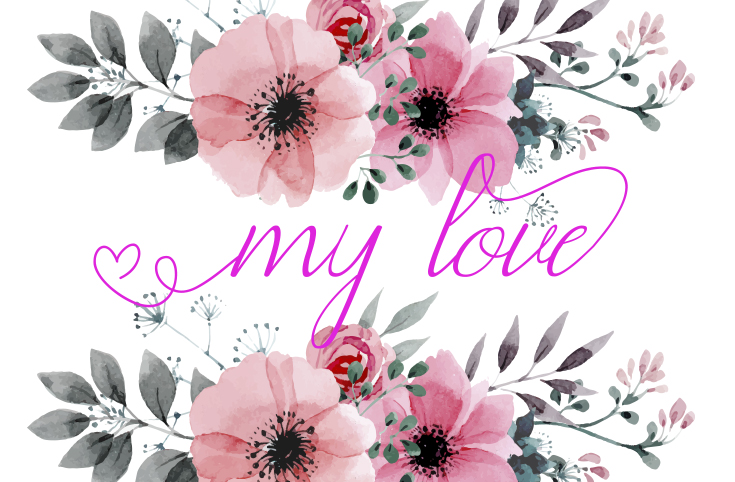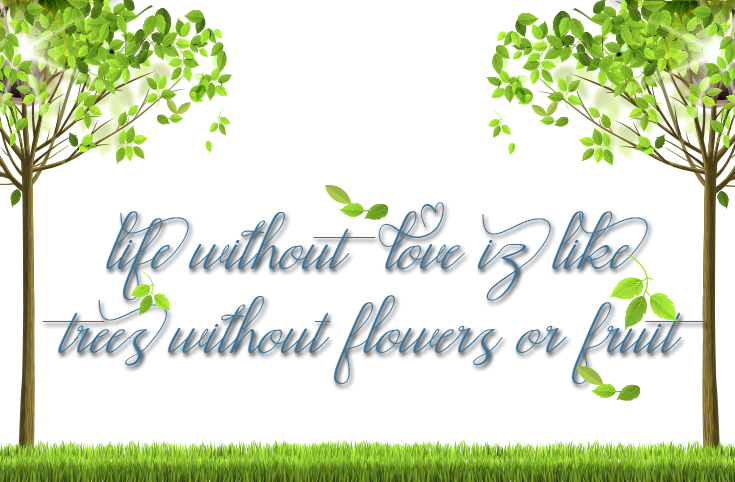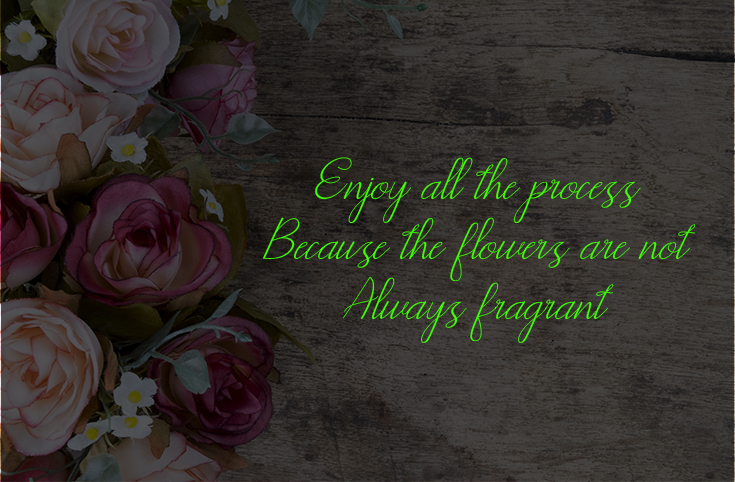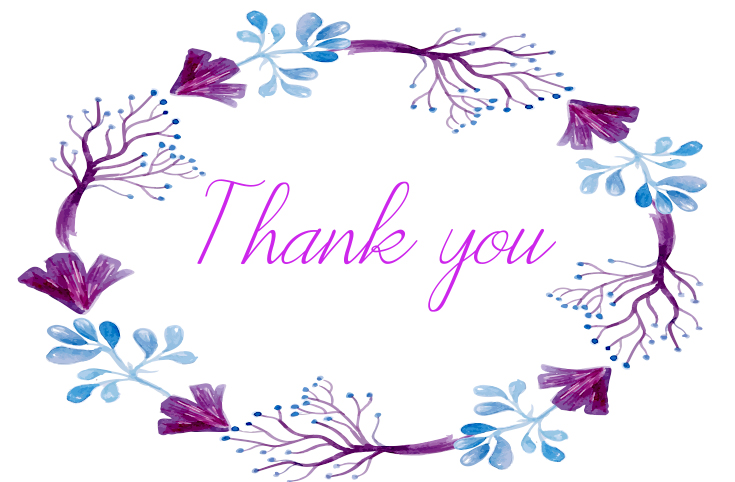
Introduction to Katrina Font
Have you ever stared at a blank canvas, wondering how to bring your creative vision to life? I’m sure many designers can relate to that feeling. But sometimes, all it takes is the right design resource to spark inspiration. For me, it was discovering the beautiful Katrina Font.
This stunning script font is a game-changer for any creative project. With its high-quality design and elegant feel, it adds a touch of sophistication to even the most complex layouts. And the best part? It’s available for free download, making it an accessible design resource for designers of all levels.
Whether you’re working on a romantic wedding invitation, a blog post, or a social media graphic, Katrina Font is sure to elevate your design to the next level. Its transparent background and fluid lines make it perfect for a wide range of applications, from print to digital media.
Katrina Font
- High-quality font design with a unique, elegant style.
- Features a transparent background, making it easy to layer and customize in design applications.
- Includes a range of font sizes, with each character carefully crafted to ensure clarity and readability at various resolutions.
- Supports a wide range of languages, making it a versatile font for international design projects.
- Designed with a high level of detail, Katrina Font is ideal for use in creative projects requiring a touch of sophistication and elegance.
Honest Review: Katrina Font
As a designer, I’m always on the lookout for high-quality design resources that can elevate my creative projects. Recently, I stumbled upon the Katrina Font, and I must say it’s been a game-changer for my designs. The font is a free download, making it an excellent addition to any designer’s toolkit.
Here are some of the features that make the Katrina Font stand out:
- ✨ High-quality design that’s perfect for a wide range of creative projects
- ✨ Transparent background, making it easy to use in various design applications
- ✨ Versatile font that works well for both digital and print designs
While the Katrina Font is an excellent addition to any designer’s toolkit, there are a few limitations to be aware of:
- ⚠️ Limited character set, which may require additional font files for extended use
- ⚠️ Not suitable for complex text arrangements, as it may lose its clarity
Overall, I’m impressed with the Katrina Font. Its high quality, versatility, and free download make it an excellent choice for designers looking to elevate their creative projects. With a little creativity and planning, the Katrina Font can be a powerful tool in your design arsenal.
Katrina Font
To get the most out of the Katrina Font, experiment with different font sizes, styles, and colors. You can also combine the font with other design elements, such as graphics and images, to create a unique and eye-catching design. Remember to adjust the font size and style to suit the context of your design.
The Katrina Font is perfect for a variety of design projects, including logos, graphics, presentations, and documents. Its high-quality design and transparent background make it ideal for creating eye-catching and professional-looking designs.